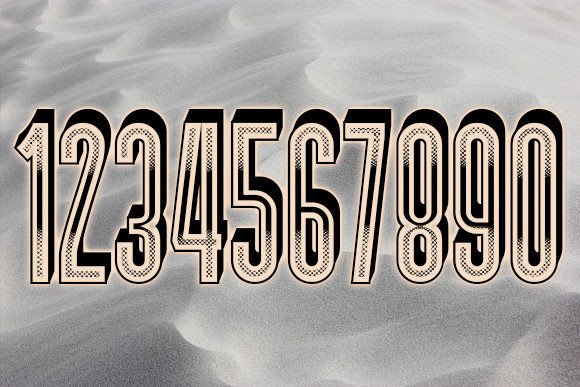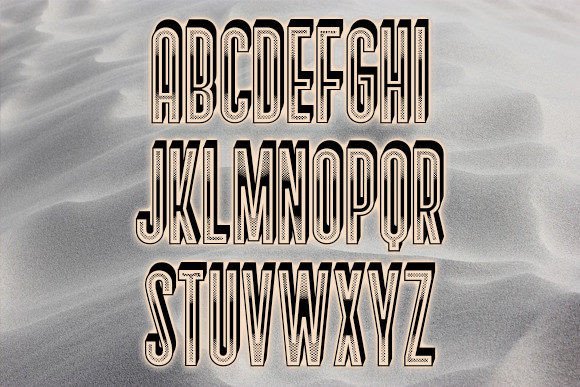
Introduction to Sabbia Font
Sabbia is an extravagant Sans serif typeface that will cheer up Your works.
Use this font on posters, flyers, and headlines .
Key Features of Sabbia Font
Why Choose Sabbia Font?